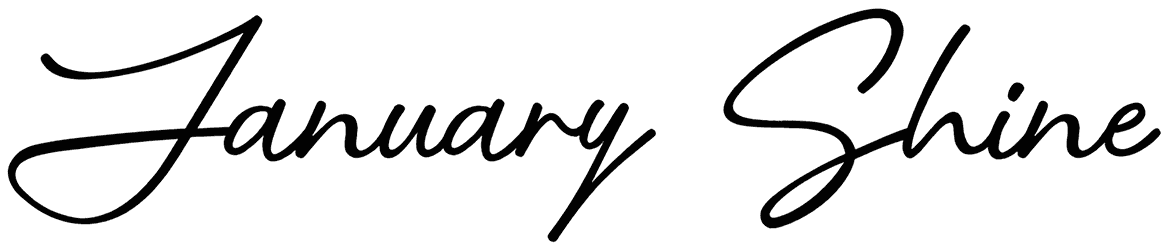
January Shine Font
With a classic and beautiful font like January Shine, it will not be difficult to design classy and stylish designs. This quote font has realistic and nice pen lettering and mirrors a striking vibe. Give it a try and set January Shine on your intended layouts, such as postcards, planners, logos, or more of the same, and be creative.